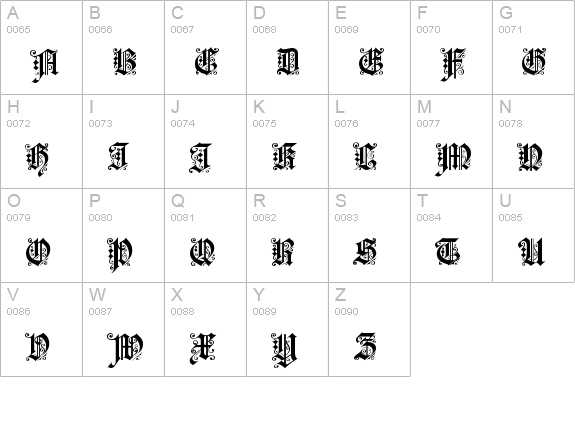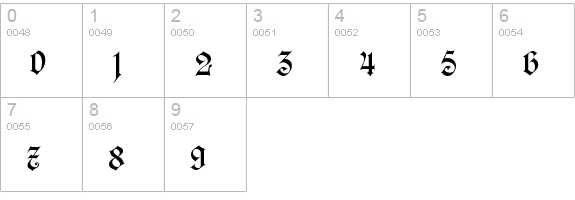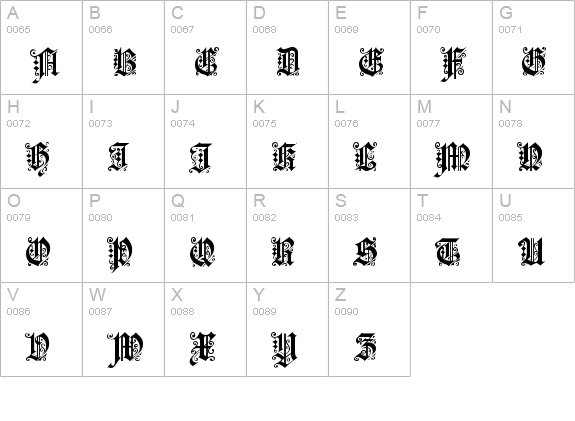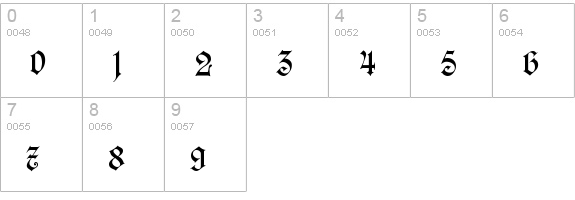
KaiserzeitGotisch Font Details
KaiserzeitGotisch font is a stunning display typeface that exudes elegance, sophistication, and a touch of nostalgia. Inspired by the typography of the German Imperial Era, this font beautifully captures the essence of that historical period with its ornate and intricate letterforms. With its tall and slender design, KaiserzeitGotisch adds a touch of grandeur to any project, whether it's a vintage-inspired logo, an elegant invitation, or a captivating headline. What makes KaiserzeitGotisch font even more appealing is that it is freely available to download at FontsMarket.com. Yes, you heard it right, this remarkable font can be yours without any cost. FontsMarket.com, a trusted platform for high-quality fonts, offers this gem of a font as a free download, making it accessible to designers, creatives, and enthusiasts alike. This font encompasses a wide range of characters, including uppercase, lowercase, numerals, and punctuation marks, enabling you to use it for various design purposes. Whether you're looking to create a vintage-inspired poster, a classic book cover, or an elegant wedding invitation, KaiserzeitGotisch font has got you covered. With its meticulously crafted details and its ability to evoke a sense of nostalgia, KaiserzeitGotisch font stands out among the crowd. Its timeless appeal and classic charm make it a perfect choice for projects that require a touch of sophistication and a hint of history. So, don't miss out on this incredible opportunity to enhance your designs with the beauty of KaiserzeitGotisch font. Head over to FontsMarket.com, where you can freely download this remarkable font and let your creativity soar.